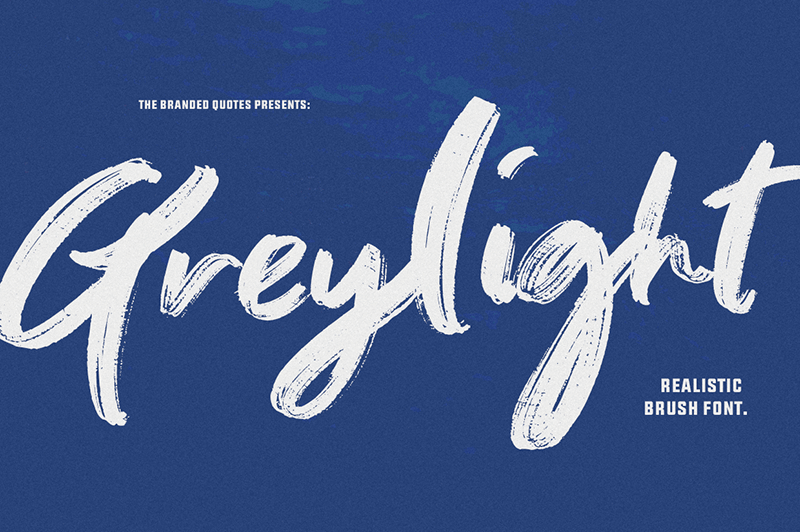
Preview and download Greylight Font. Created by The Branded Quotes in Script Brush styles with Demo license.
For commercial use, please purchase the font here: https://thebrandedquotes.sellfy.store/p/greylight-brush-font/ About this font: Bold and straightforward realistic brush font. It works well both on light and dark backgrounds. Slap it over your projects and brand name. No need to be techy, just type and go! Includes: OTF Greylight Regular OTF Greylight Italic Features: Multilingual Support Punctuations and Numerals Thanks and Enjoy! |